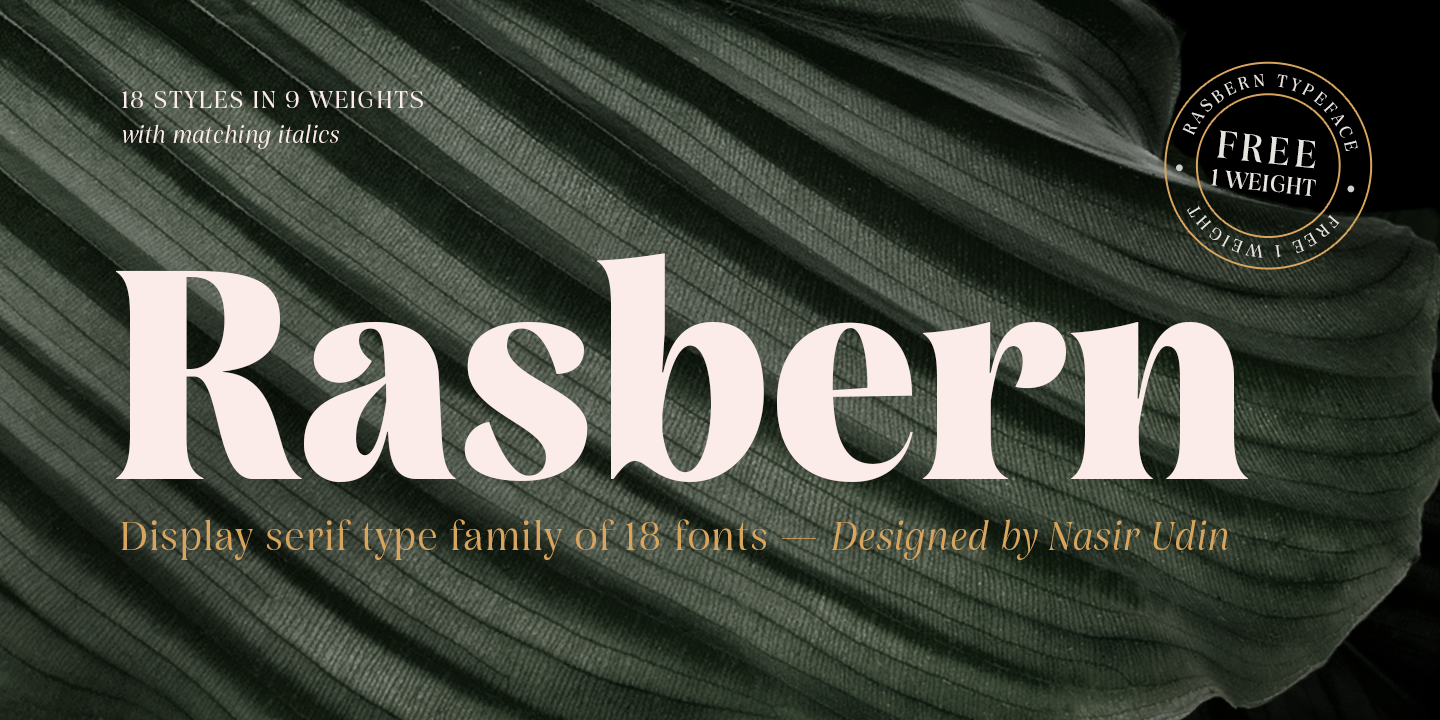
The Rasbern Font excels in various design applications including contemporary tech startup branding, modern digital agency marketing, innovative software company communications, cutting-edge technology materials, progressive design studio identities, forward-thinking brand promotions, modern app interface signage, digital innovation documentation, tech conference packaging, and distinguished technological projects that demand innovation authenticity and modern sophistication.
What makes the Rasbern Font exciting is its innovative embodiment of technological advancement and modern digital culture through letterforms that capture the essence of contemporary design thinking and the progressive spirit of digital innovation. This typeface demonstrates exceptional modernity through carefully engineered characters that suggest the clean precision of modern interfaces, the systematic approach of digital design, and the forward-thinking vision that makes contemporary technology so functionally powerful and culturally transformative. The font's tech personality makes it perfect for technology companies and digital agencies seeking to communicate innovation authenticity, modern expertise, and the kind of technological sophistication that creates memorable digital experiences through typography that literally codes with modern precision.
The Rasbern Font family typically includes streamlined weight variations that enhance the technological aesthetic, featuring modern styling options and extended character sets optimized for digital communications and tech applications. These family options often include tech-inspired alternates, digital symbols, and innovative decorative elements that provide designers with comprehensive tools for creating authentically modern typography that celebrates technological advancement while maintaining contemporary design appeal and digital credibility.
Technology professionals and digital innovation organizations consistently select Rasbern Font Free Download for projects requiring typography that communicates technological authenticity and modern sophistication. This typeface delivers exceptional performance in tech marketing, digital branding, and innovation communications where establishing expertise and creating cutting-edge atmosphere is essential for technological engagement. The font's modern character makes it particularly effective for software and digital applications. Download Rasbern Font Free Download today to access this innovatively modern typeface that transforms technological communications with its digital elegance and contemporary sophistication, creating compelling tech experiences that honor the magnificent precision of modern technology while celebrating the innovative thinking that defines authentic digital culture and technological excellence.